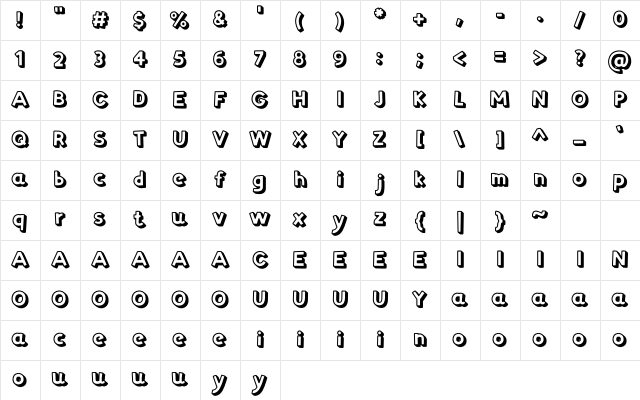
Zyzol Shadow
Style: Shadow
Designer: Szymon Furjan
Design Context for Zyzol
Zyzol is built around its visual character rather than neutral utility - its distinctive forms are designed to make an impression at display sizes.
Font Pairing: Pair with a clean neutral sans-serif for body copy to let Zyzol's character lead without overwhelming the composition.
Pro Tip: Use Zyzol exclusively at display sizes - it was designed to be seen, not read at length. Let a neutral companion handle body copy.